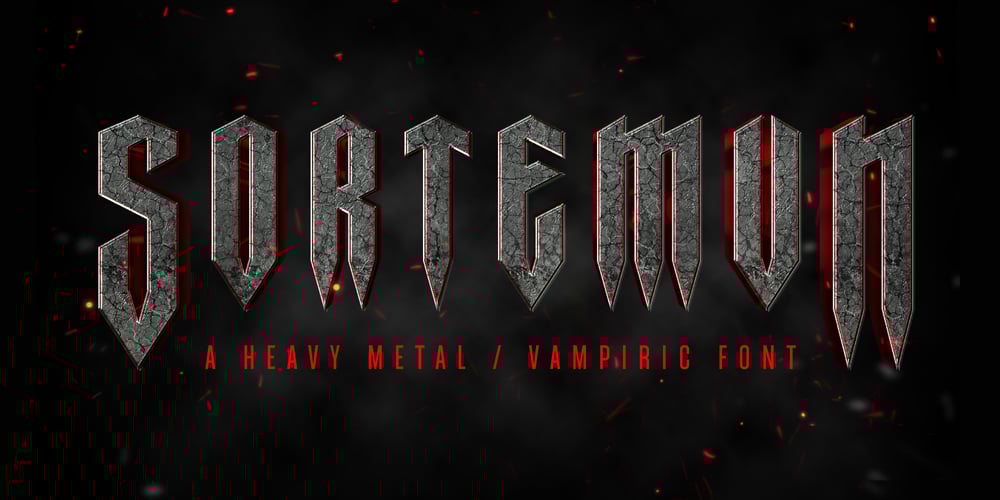
Sortemun
Sortemun font
Sortemun Font Family was designed by Marin Damian and published by Mandarin. Sortemun contains 1 styles and family package options. Sortemun is a modernist display font based on heavy metal band graphics with a touch of horror movies from the 70/80’s. Bold, mysterious and vampiric it’s suitable for use in various projects such as rock/metal albums, scary games, horror movie titles, swag graphics, headlines, book covers, Halloween based parties etc.